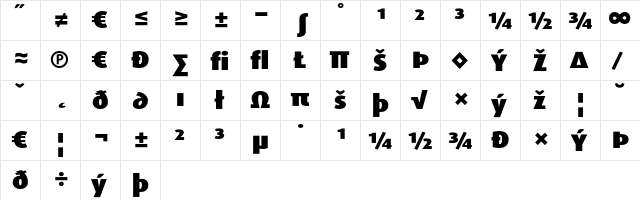
DaxWide BlackExpert
DaxWide offers clean, dependable letterforms without strong stylistic allegiance, making it a practical choice for designers who need flexibility.